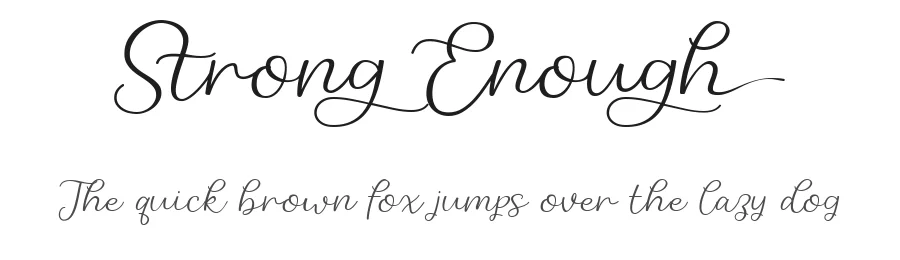
About Fragile Font
| Designer | Takiyuddin |
Fragile ships with 2 OpenType features you can switch on in apps that support them (Illustrator, InDesign, Affinity, Figma, CSS font-feature-settings).
- Stylistic sets (8)
Fragile supports 203 languages.
Fragile Font is a script font that shines as a display or heading face. Pair it with a clean sans-serif or serif font for body text β the contrast creates a clear hierarchy while the two styles stay balanced and easy to read.